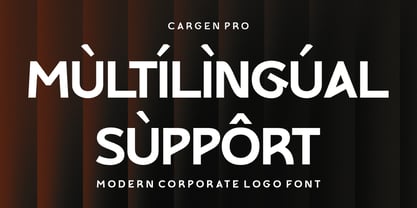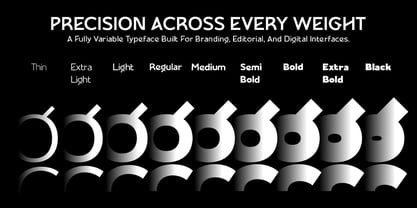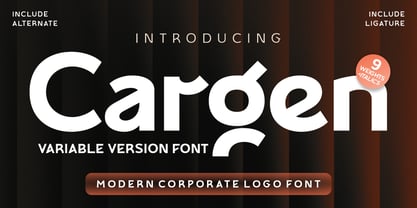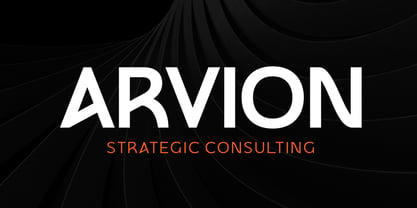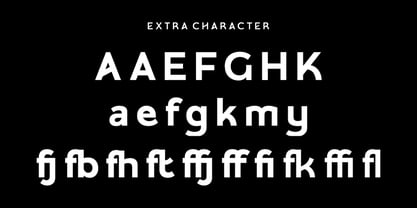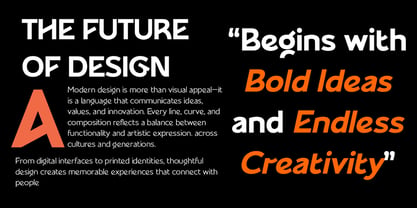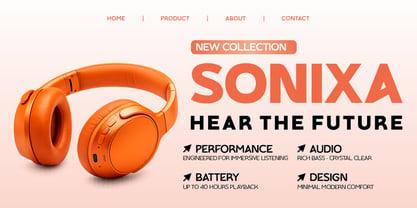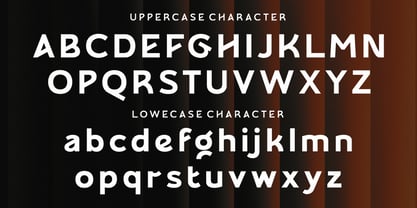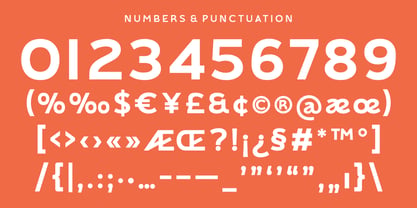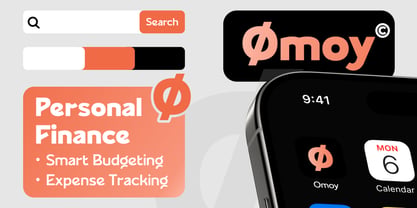
Cargen Pro
La famille de polices Cargen Pro a été conçue par Nur Mokhamad Bismatulloh et publiée par Bimaksara. Cargen Pro contient 18 styles et options de package familial. En savoir plus sur cette famille
Cargen Variable is a contemporary sans serif variable typeface crafted for modern branding and corporate identity. With its clean geometry, refined proportions, and versatile design, it creates a strong visual presence while maintaining exceptional readability.
Designed for maximum flexibility, the variable font allows seamless weight transitions within a single font file. Complete with stylistic alternates, ligatures, multilingual language support, and italic styles, Cargen Variable is an ideal choice for designers seeking efficiency without compromising quality.
Whether you're creating logos, brand identities, packaging, editorial layouts, websites, or marketing materials, Cargen Variable delivers a polished and professional look for every project.
Perfect for:
• Logo design
• Corporate branding
• Visual identity
• Editorial design
• Packaging
• Website headers
• Advertising
• Modern typography